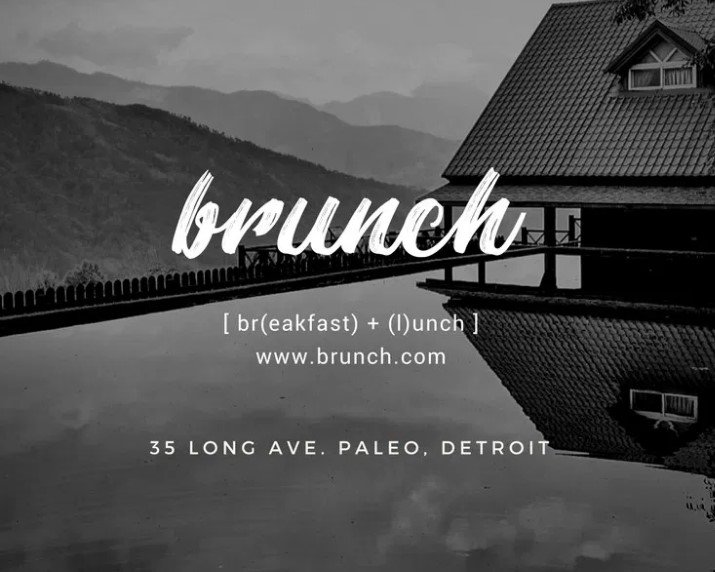
Barbershop in Thailand Font Free Download
Discover the stunning, refined, and classy Barbershop in Thailand Font which is highly popular among font enthusiasts online. With top-notch ratings and positive reviews, this font features sleek strokes and delightful designs perfect for any creative project you have in mind. Dive into the world of Barbershop in Thailand Font today and elevate your design game like never before
You don’t need anything after downloading this font to make attractive and beautiful designs. This font has great features, characteristics and ligatures for making perfect project.
This is famous and popular typeface among the graphic designers and it is perfect for designing banners or posters because of its attractiveness.
This scripted and handwritten typeface that is similar to adelicia font which has a popular texture so that can also be used in pairing also. That’s why each designer treated it as a really perfect font in all appreciate.
• Promotional videos
• Catalogs
• Vehicle wraps
• Apps
• Web page design
NameBarbershop in Thailand Font Free
Style Script
Designer Octotype